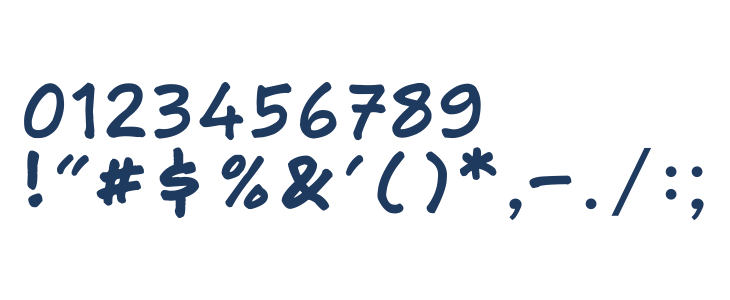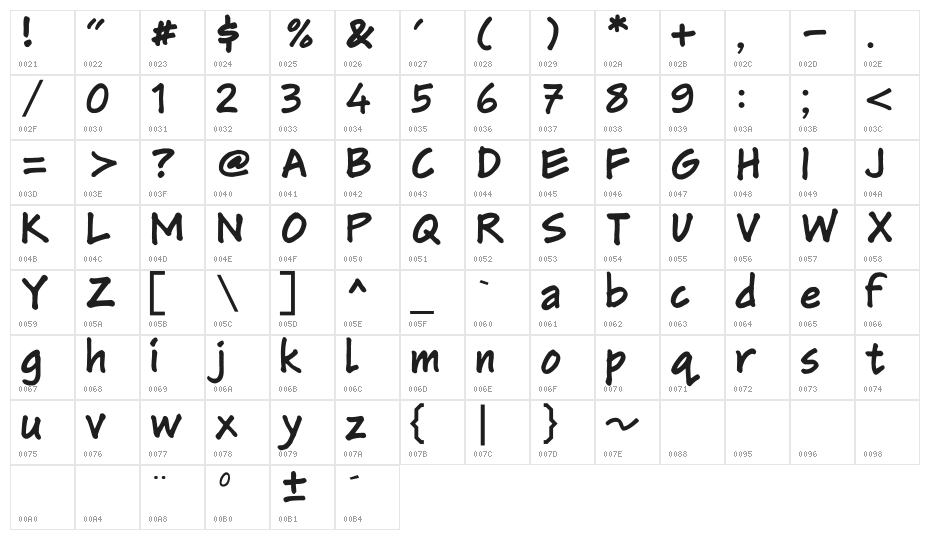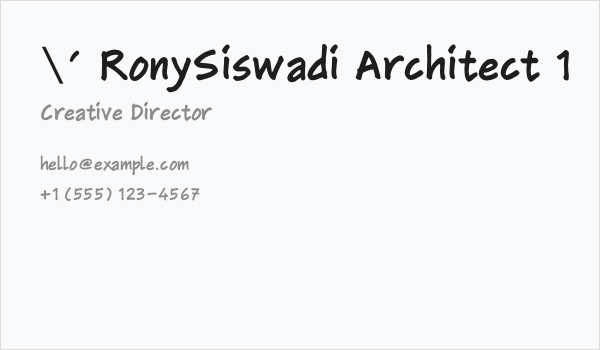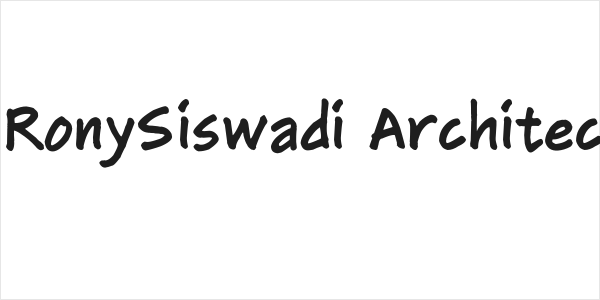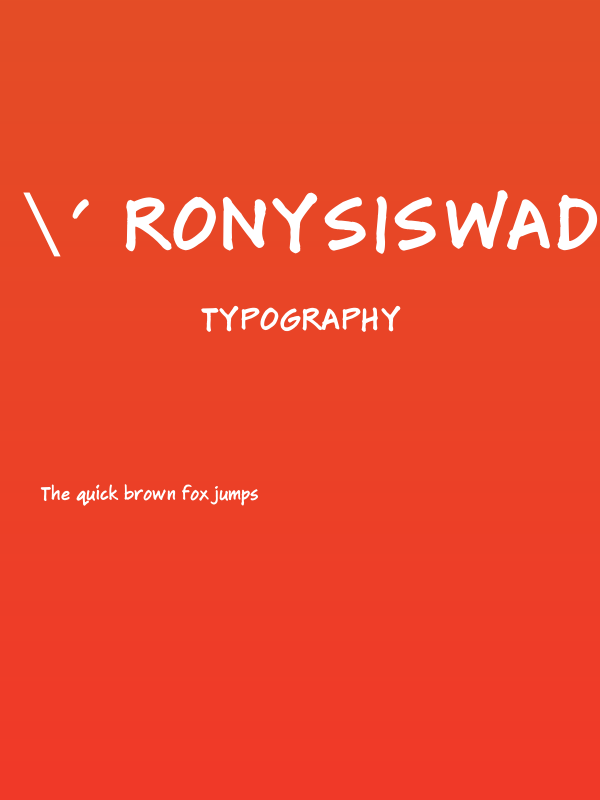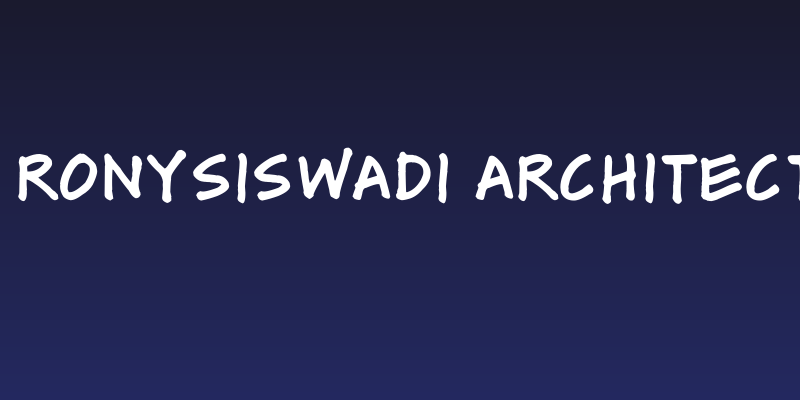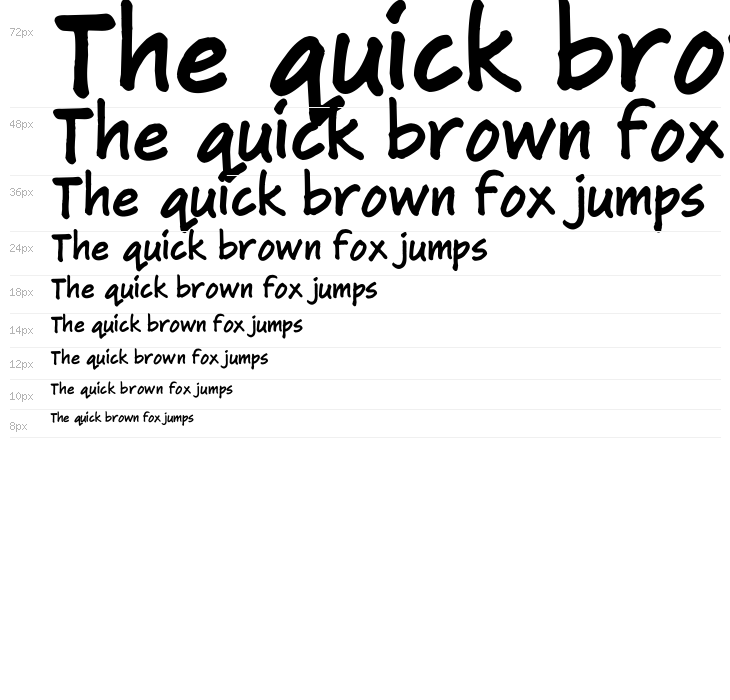
' RonySiswadi Architect 1 Font
' RonySiswadi Architect 1 Description
This font features a handwritten style with a casual and informal appearance. The characters are bold and slightly irregular, giving them a playful and approachable feel. The uppercase and lowercase letters maintain a consistent style, with rounded edges and a slight slant that adds to the handwritten effect. The numerals and special characters are designed to match the overall aesthetic, ensuring a cohesive look across all text. This font is ideal for projects that require a personal touch or a creative flair.
| Proposed Projects | Ideal for greeting cards, invitations, personal branding, and creative projects that require a casual and friendly tone. |